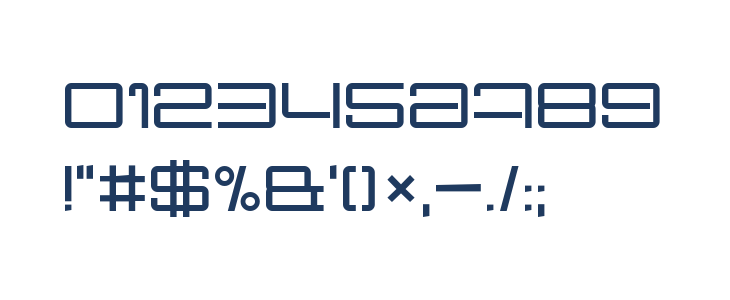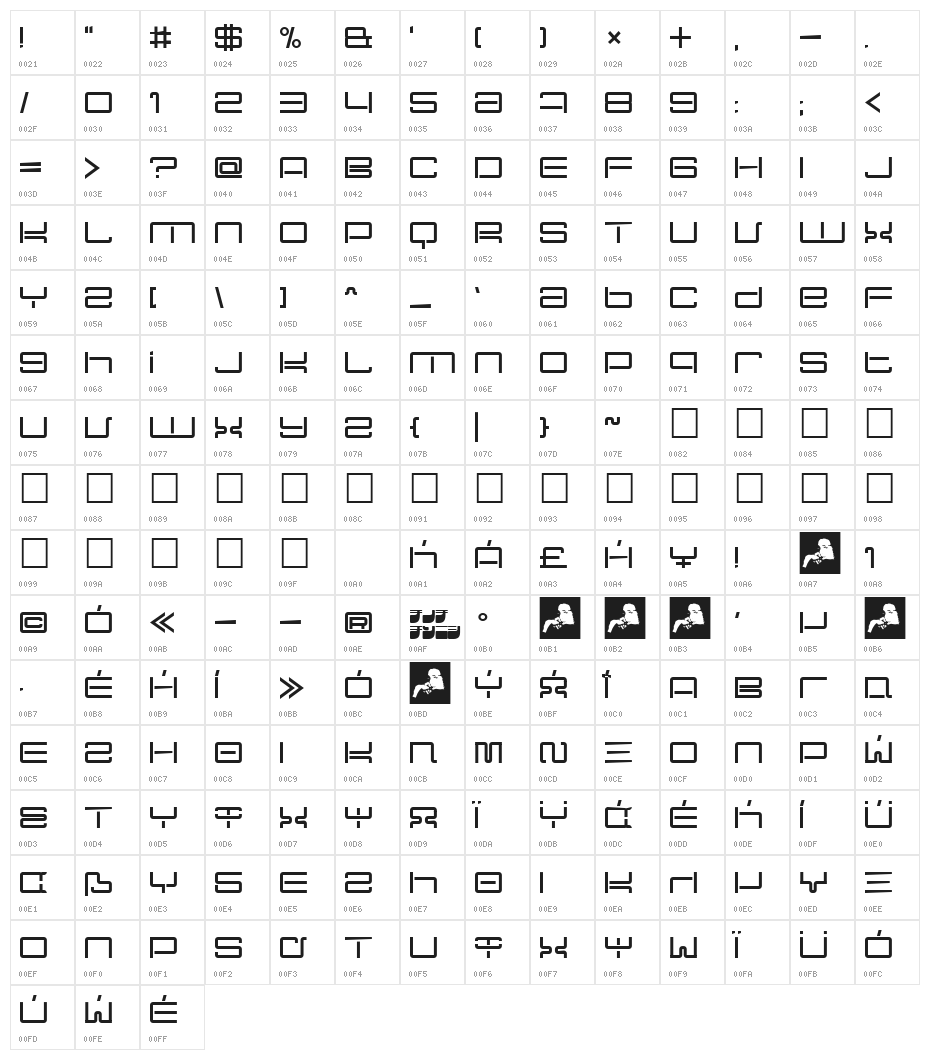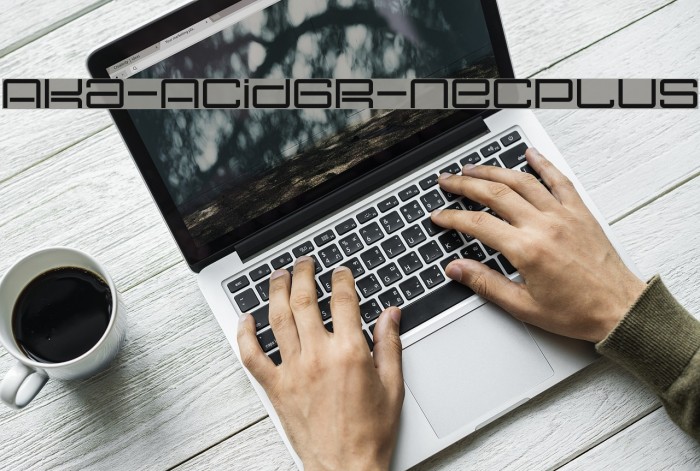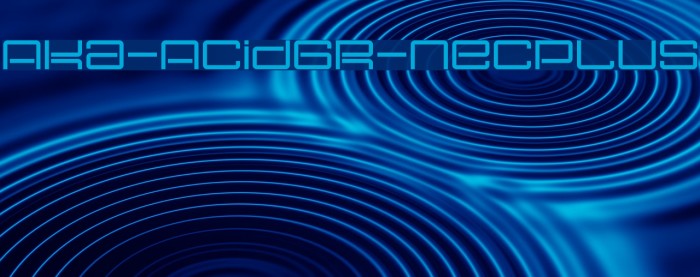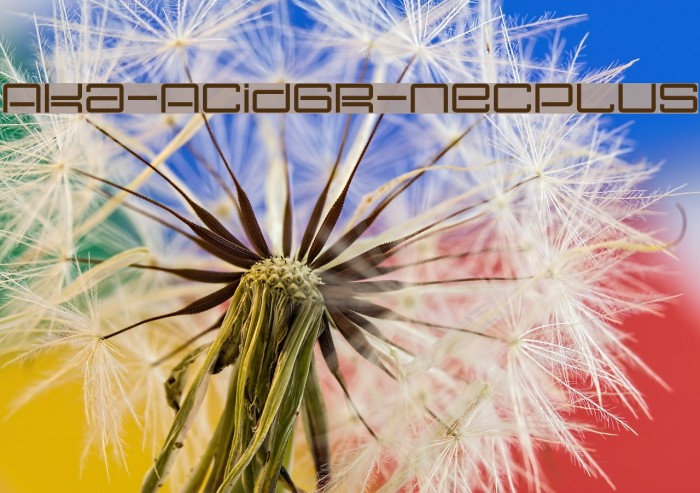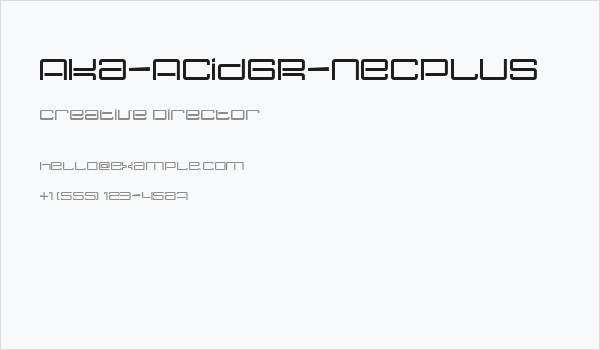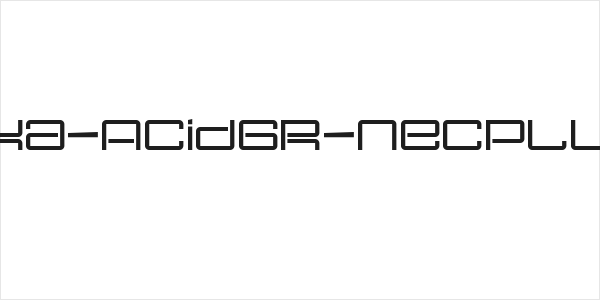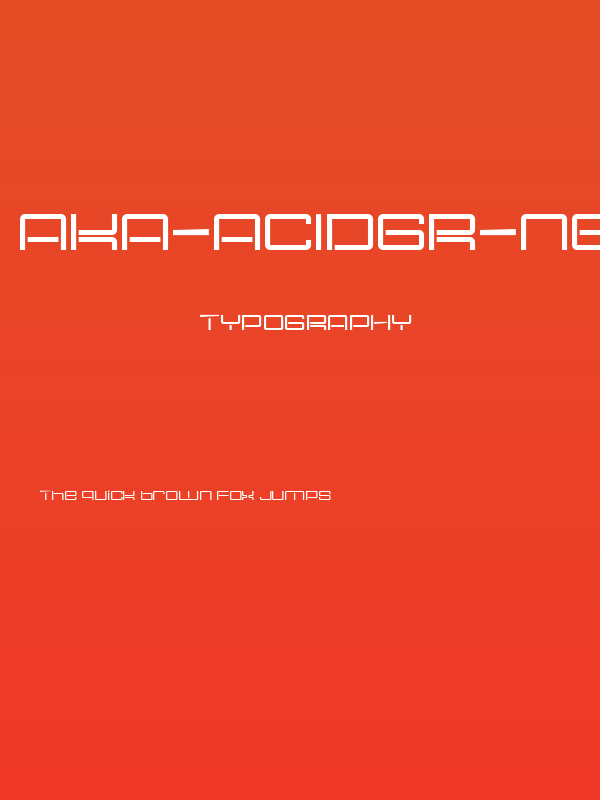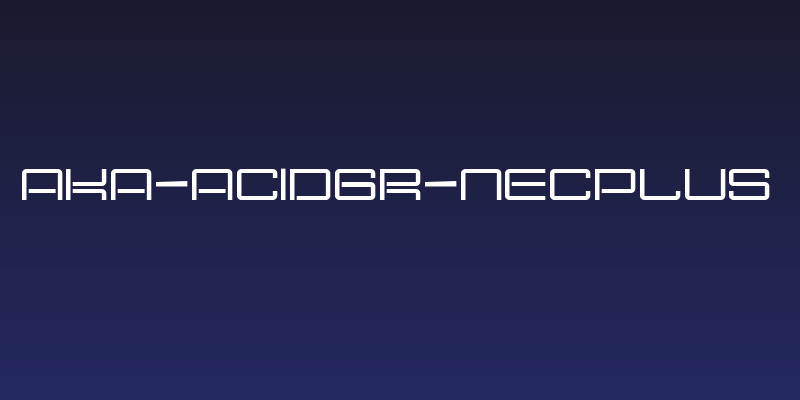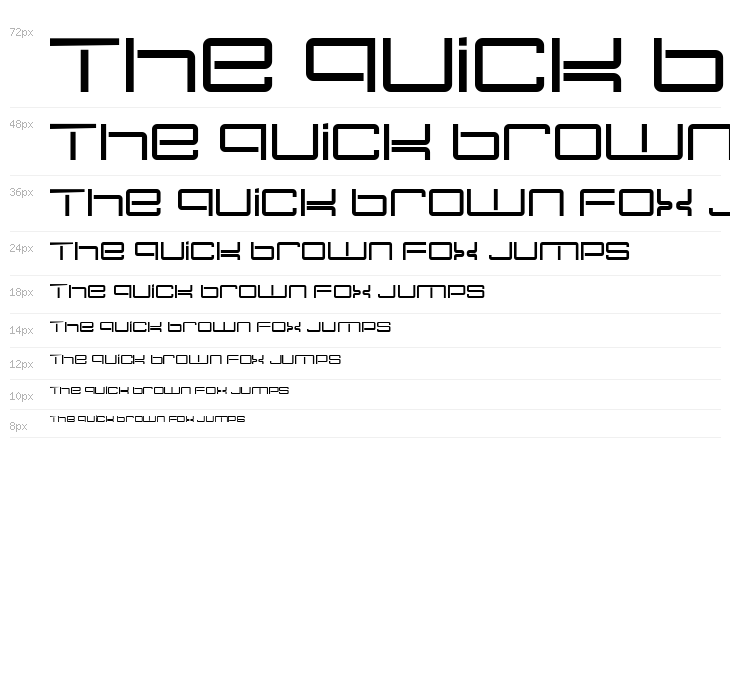
Aka-AcidGR-Necplus Font
Aka-AcidGR-Necplus Description
This font features a futuristic and geometric design with a distinctly digital aesthetic. The characters are composed of clean, straight lines and sharp angles, creating a sense of precision and modernity. The uppercase and lowercase letters maintain a consistent height, contributing to a uniform appearance. The numerals and special characters follow the same design principles, ensuring cohesion across all elements. The font's unique style makes it suitable for projects that require a contemporary and tech-savvy look.
| Proposed Projects | Ideal for tech branding, digital interfaces, video game design, and modern advertising. |